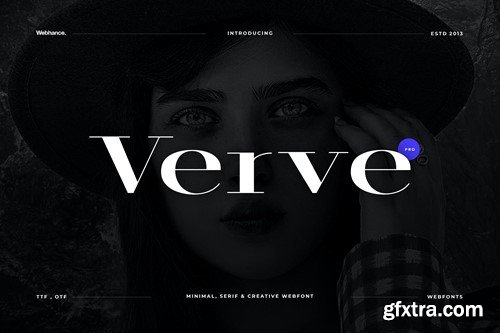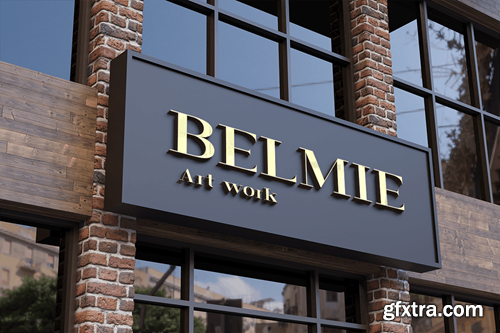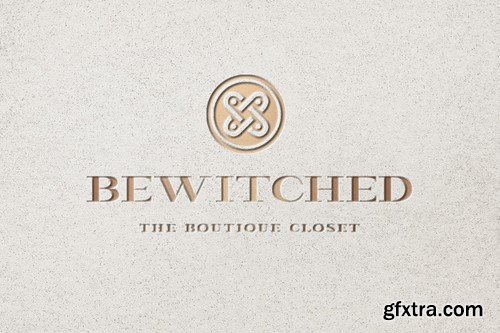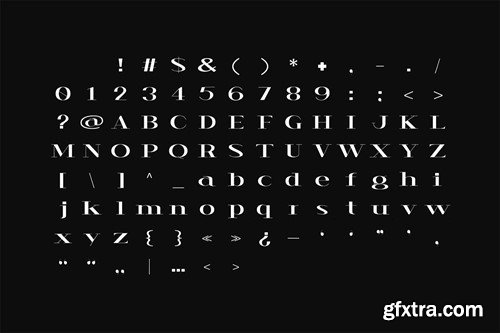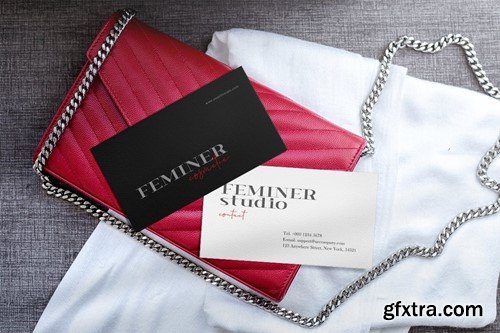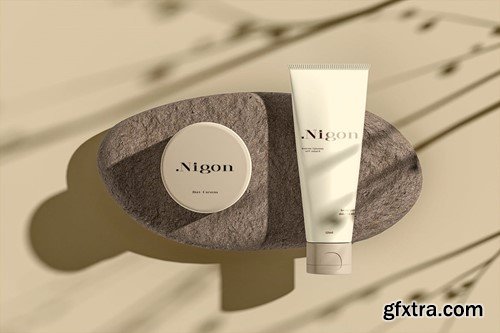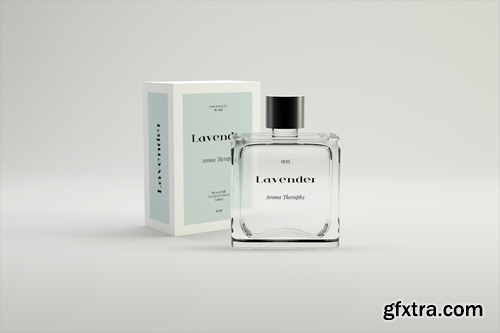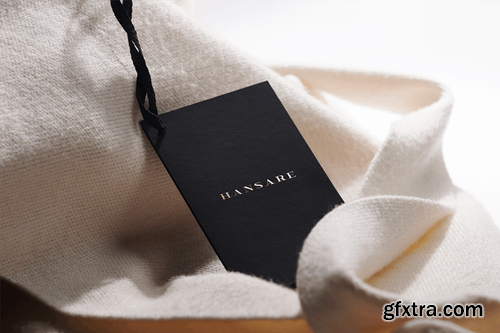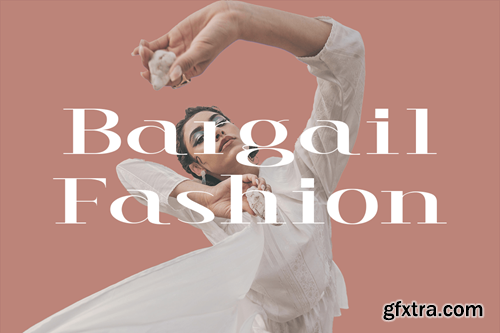
Verve - Modern Serif Font
Verve - Modern Serif Font Verve is a premium serif font meticulously crafted for those who seek to infuse a sense of style and elegance into their designs. This font is characterised by its fashion-forward aesthetic, making it a perfect choice for magazine headlines, branding, and other design applications that demand a touch of refinement. The pack includes OTF, TTF and Web Fonts (all EOT, TTF, WOFF included). Font Designed and Crafted by Webhance Studio.